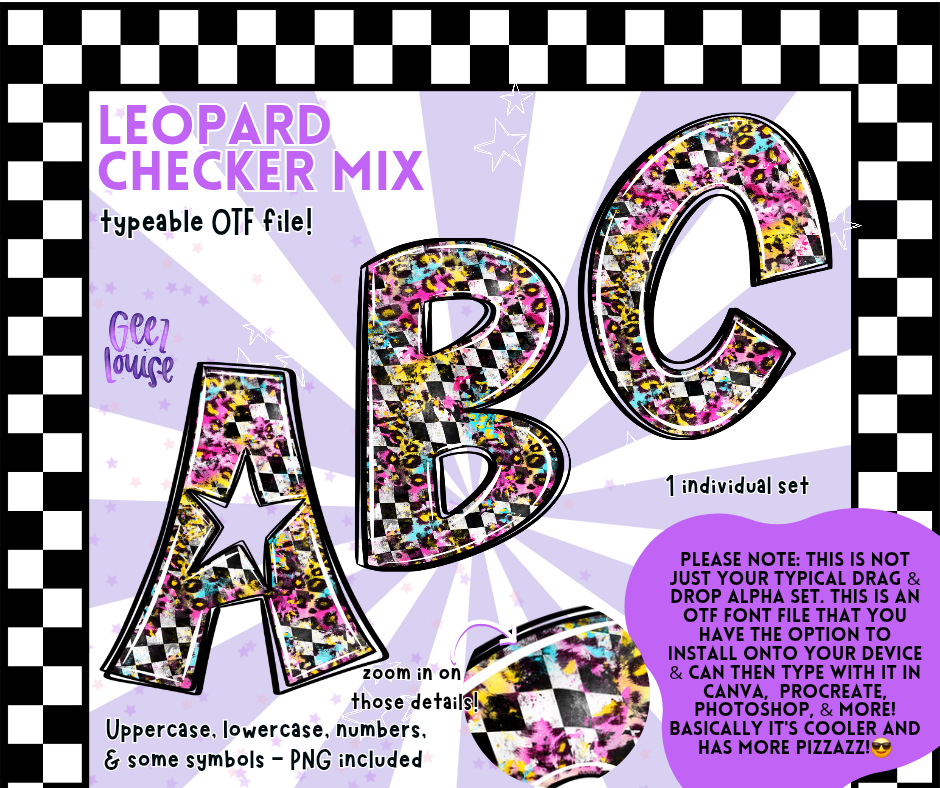
Leopard Checker Mix Alpha – OTF Font + PNG | Uppercase, Lowercase & Symbols
Bring the chaos—in the best way—with the Leopard Checker Mix Alpha! This bold, punchy font combines leopard print and checkers with a splash of sass, perfect for creating edgy, eye-catching designs.